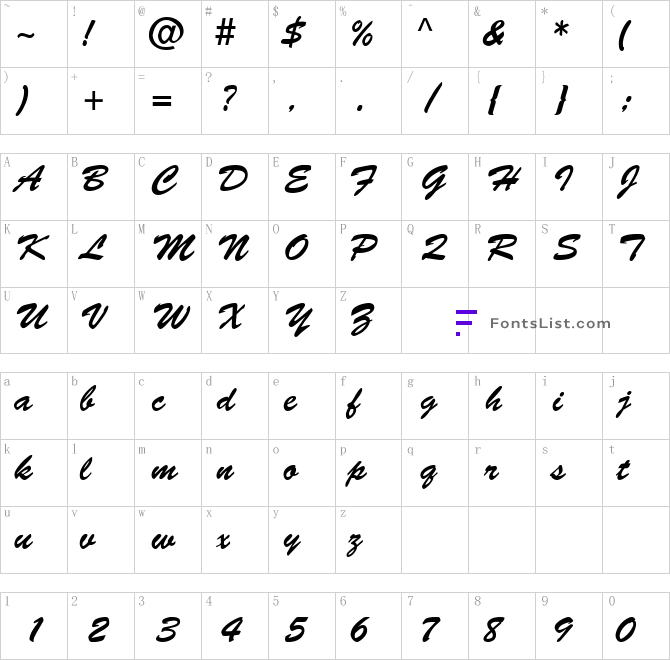
Banty-Normal.ttf is a very beautiful artistic font, Banty-Normal.ttf is widely used in the design and printing of various books and pictures,Banty-Normal.ttf has a strong visual impact,Banty-Normal.ttf is a commonly used font in newspapers, magazines and books, and is used in posters, e-commerce Poster design, store design, logo design, font design and other fields.Banty-Normal.